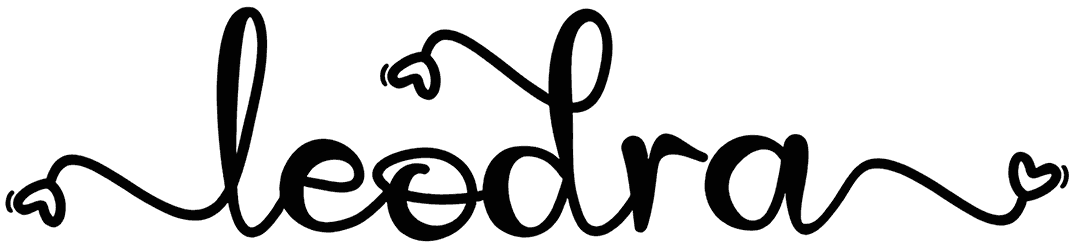
Leodra Font
If you’re in charge of a project with a welcoming tone, the Leodra font could be a good choice. In both print and screen-based formats, this calligraphy script font is a solid choice.
This fresh, love font can be used for anything from journal headers to signatures. You can choose to keep everything the same or go against the convention and download it. You may find a broad choice of fun fonts for your next project in our online font library.